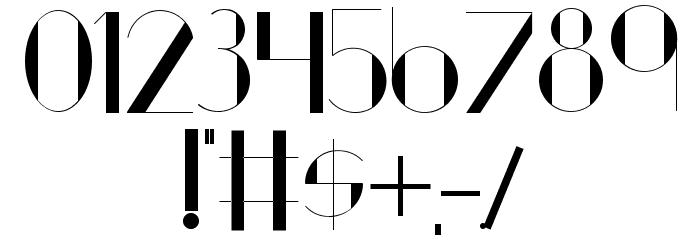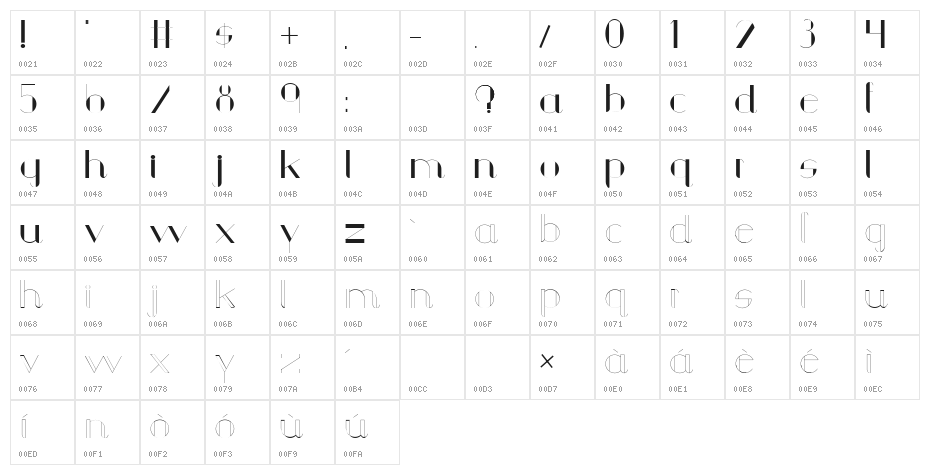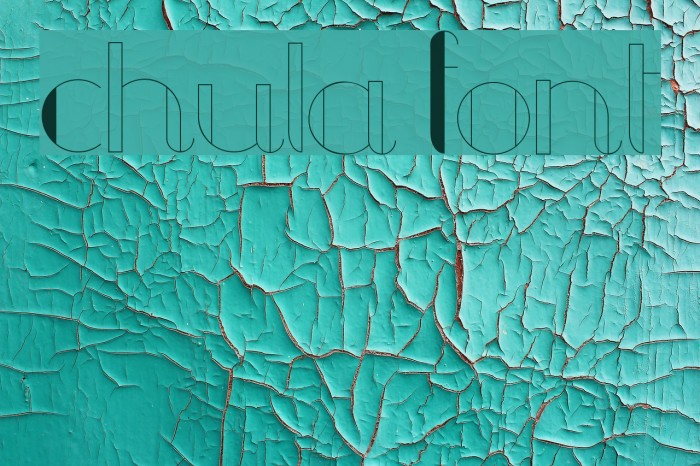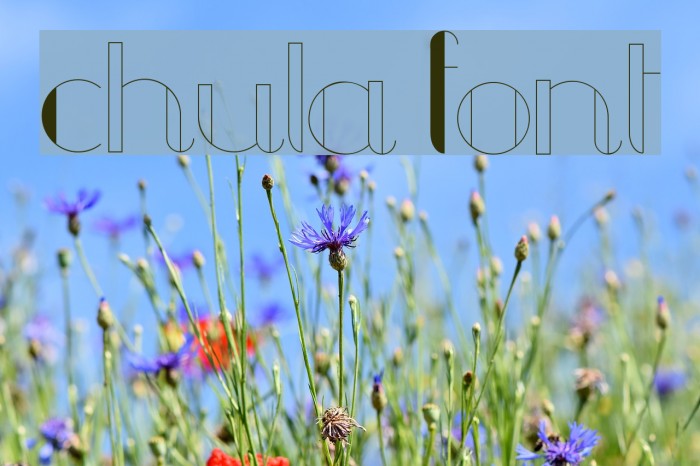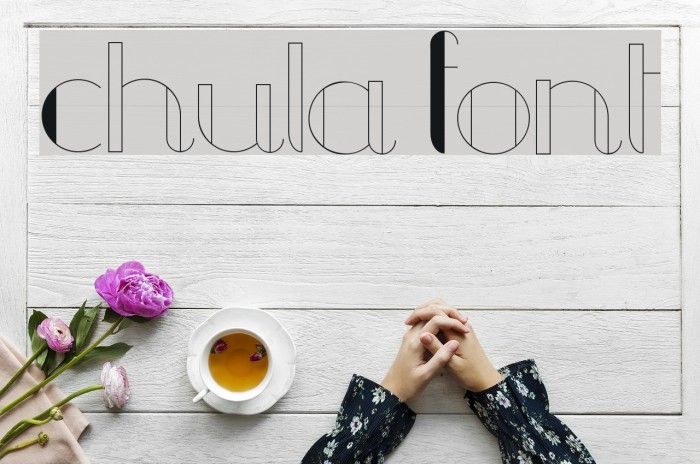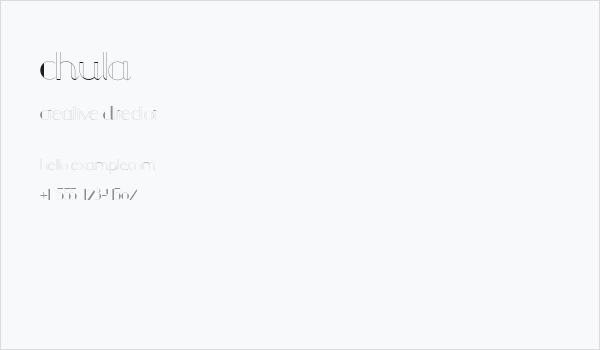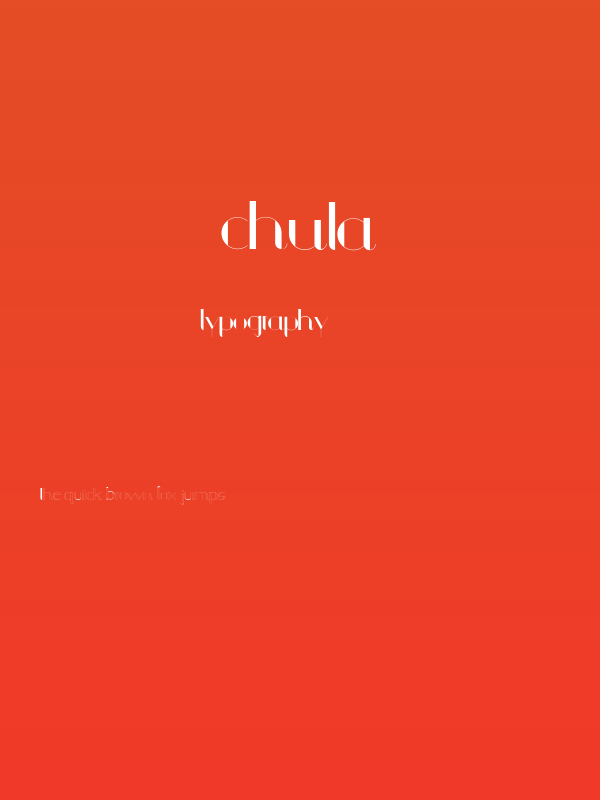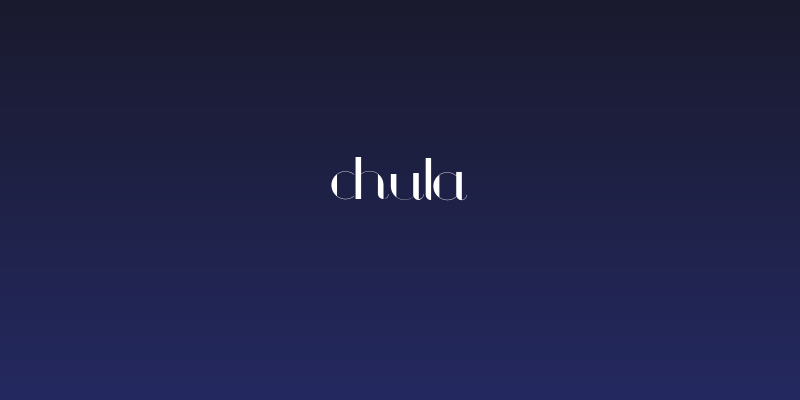
Chula Font
Chula Description
This font features a modern and sleek design with a high contrast between thick and thin strokes. The characters are elongated with a unique blend of geometric and organic shapes, creating a distinctive and stylish appearance. The uppercase and lowercase letters maintain a consistent style, with some characters having an artistic flair, such as the curved tails on letters like 'j' and 'y'. The numerals are bold and striking, complementing the overall aesthetic. Special characters are designed with the same attention to detail, making this font versatile for various applications.
| Proposed Projects | Ideal for branding, fashion magazines, modern art posters, and luxury product packaging. |